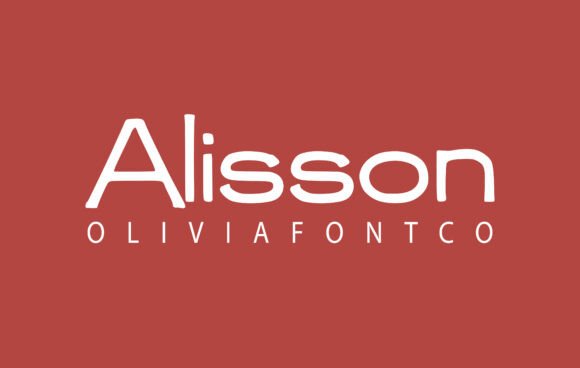
The Alisson Font: A Romantic Touch for Your Creative Projects
I’ll never forget the moment I stumbled upon the Alisson font while working on a wedding invitation project for a dear friend. I had been searching for the perfect font for weeks, and my client was getting anxious. The invitation had to be elegant, sophisticated, and convey the love and joy of the occasion. As soon as I saw Alisson, I knew I had found the one. Its romantic touch and authentic handwritten feel instantly captured the essence of the project.
An Honest Review of Alisson Font
- ✨ Legibility: Alisson font is incredibly easy to read, making it perfect for both title and body text.
- ✅ Romantic touch: The font’s authentic handwritten feel adds a touch of elegance and sophistication to any design.
- 💕 Versatility: Alisson font is suitable for a wide range of creative projects, from magazine headlines to social media graphics, branding, wedding invitations, and more.
Now, let’s talk about a few quirks to keep in mind:
- 🤔 Limited character set: While Alisson font has a wide range of characters, it may not have every special character or glyph you need.
- ⚠️ Kerning issues: As with any font, you may need to adjust kerning to ensure optimal spacing between letters.
The Designer Inspiration Behind Alisson Font
Alisson font was designed with love and care by a talented typographer who’s passionate about creating beautiful, handwritten fonts. The designer’s inspiration came from traditional calligraphy and handwriting, with a focus on creating a font that’s both elegant and legible.
| Is Alisson font suitable for body text? | Yes, Alisson font is legible and suitable for body text. However, it’s recommended to use a larger font size for optimal readability. |